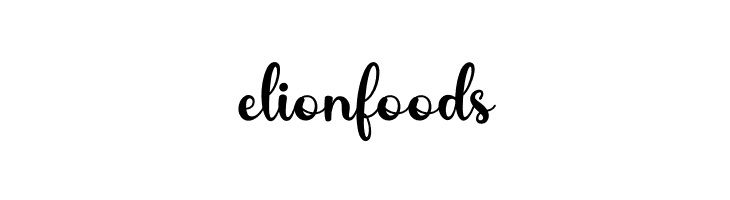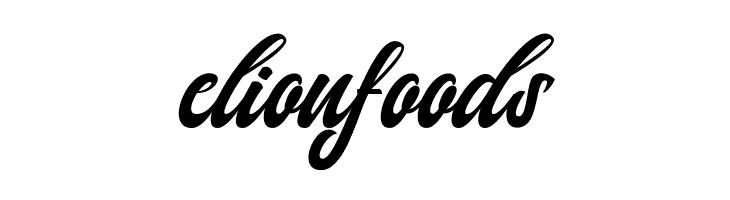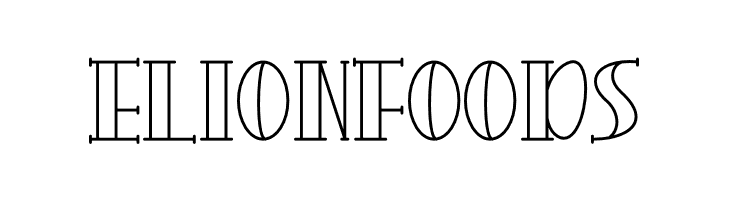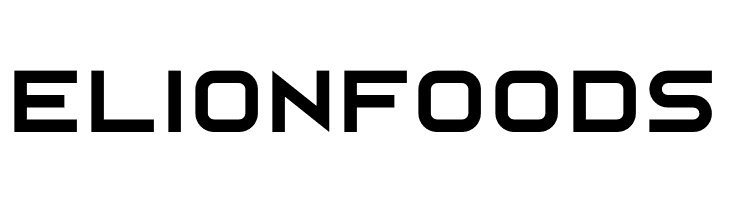
An elegant, light, and italicized typeface with high contrast and graceful curves.
A modern, elegant font with bold uppercase letters and smooth lowercase characters.
An elegant, decorative script font with ornate uppercase letters and smooth cursive lowercase letters.
A bold, expressive script font with flowing, cursive letterforms.
A decorative font with geometric, elongated letterforms and high contrast strokes.
A modern, geometric font with clean lines and uniform stroke width.
A dynamic, brush-style handwritten font with expressive strokes.
A bold, futuristic font with sharp, angular edges and a geometric design.
A bold, geometric font with a modern, industrial design.
A bold, geometric font inspired by the Art Deco era, perfect for striking visual designs.